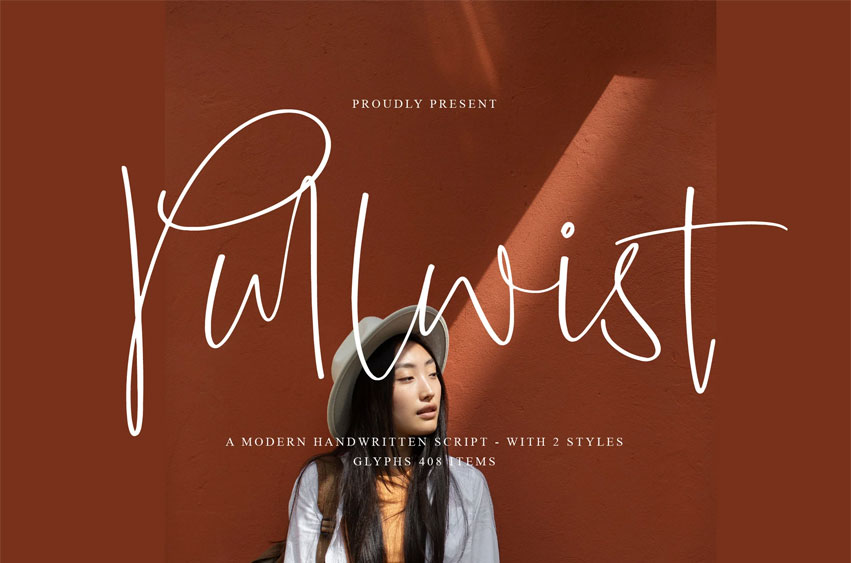
Pullwist Font is a modern handwritten script font that combines clean elegance with a touch of playful character. Designed with smooth, flowing lines and a natural rhythm, Pullwist delivers a fresh, contemporary look while preserving the charm of authentic handwriting. Whether you’re crafting logos, social media posts, product packaging, or wedding invitations, Pullwist adds a personal and stylish signature to your work.
Modern handwritten script with fluid, organic strokes Includes uppercase, lowercase, numerals, punctuation, and special characters OpenType features with ligatures and stylistic alternates for design flexibility Multilingual support for a global reach Ideal for branding, invitations, quotes, and editorial use Balanced design for both elegance and readability Make your message stand out with the refined charm of Pullwist — download today and bring your creative ideas to life with a modern handwritten touch!
• Branding and Logos
• Invitations
• Social Media Content
• Website Headers
• Personal Design & more!